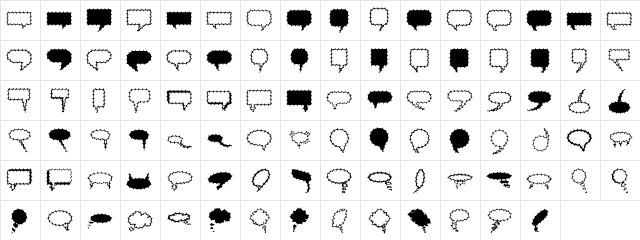
Cool Balloons Regular Font Preview
Cool Balloons Regular
Design Context for Cool Balloons Typeface
Cool Balloons is a composed and adaptable typeface that performs quietly and consistently across a wide range of design contexts.